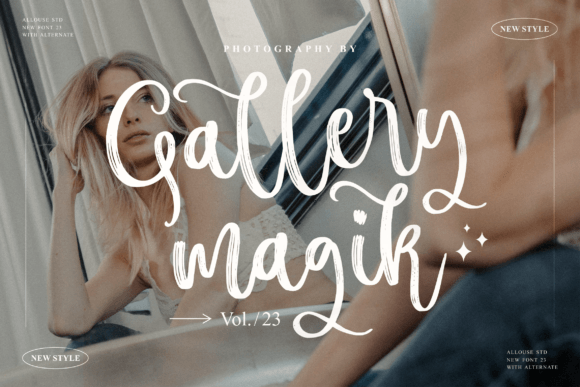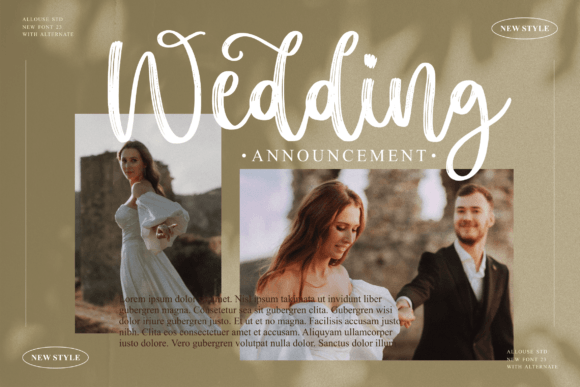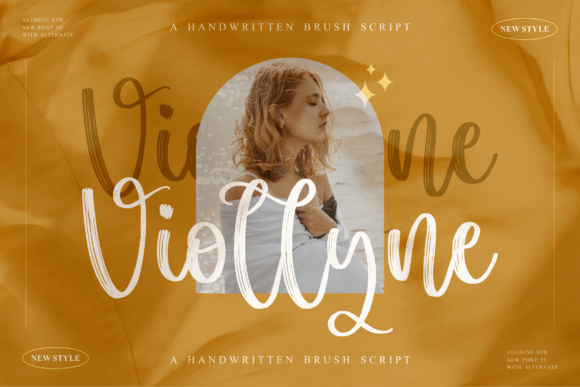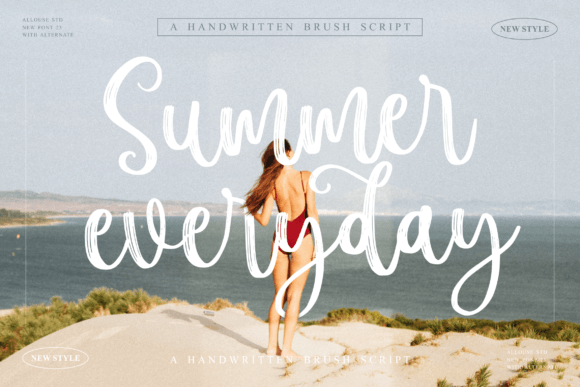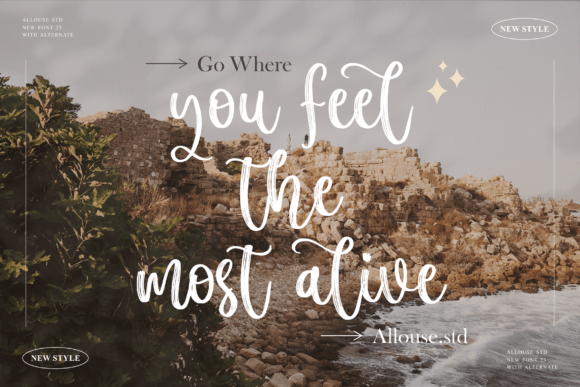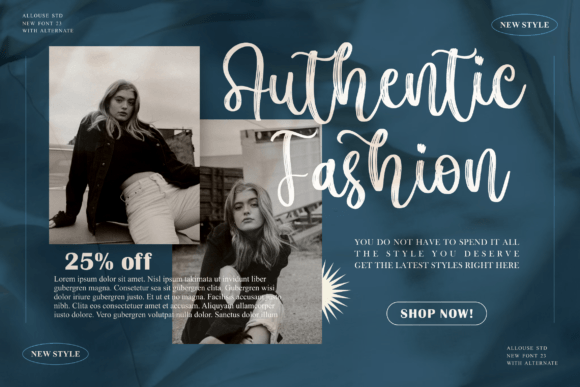
Introduction to Humbleside Font
As designers, we’ve all been there – staring at a blank canvas, waiting for the perfect words to bring our creative project to life. For me, that moment came when I stumbled upon the Humbleside Font, a beautiful handwritten brush script that added a touch of elegance to my design. Its soft, gentle curves and subtle imperfections made it the perfect choice for a wedding invitation I was working on.
But what makes Humbleside Font truly special is its versatility. Whether you’re working on product packaging, branding projects, magazines, or social media graphics, this font is a valuable design resource that can elevate your creative project to the next level. With its high-quality design and transparent background, it’s a free download that’s sure to become a go-to favorite among designers.
Key Features of Humbleside Font
- High-quality, professional design resource ideal for creative projects.
- Supports a wide range of languages, making it a versatile design resource.
- Designed to be easy to read and use, making it perfect for digital and print projects.
Honest Review: Humbleside Font
One of the things that stands out about this font is its high quality. The design is clean, modern, and very versatile, making it suitable for a wide range of projects, from business cards to digital displays. I particularly like that it comes with a transparent background option, which is super handy for creating seamless designs.
Here are some things that work well about the Humbleside Font:
- Very versatile
- Only a few font weights are available
- Not ideal for large-scale print projects
Overall, I’m impressed with the Humbleside Font. While it may not be perfect, it’s a great addition to any design resource collection, and I would definitely recommend it for most creative projects. ⭐️⭐️⭐️⭐️⭐️
Getting the Most Out of Humbleside Font
For a high-quality design, use the Humbleside Font on a transparent background to create a sleek and modern look. This font is perfect for creative projects that require a touch of elegance and sophistication. You can also use it to create eye-catching titles, headings, and captions.
The Humbleside Font is ideal for various design projects, including brochures, flyers, business cards, and social media graphics. It’s also perfect for creating a consistent brand identity across different marketing materials.